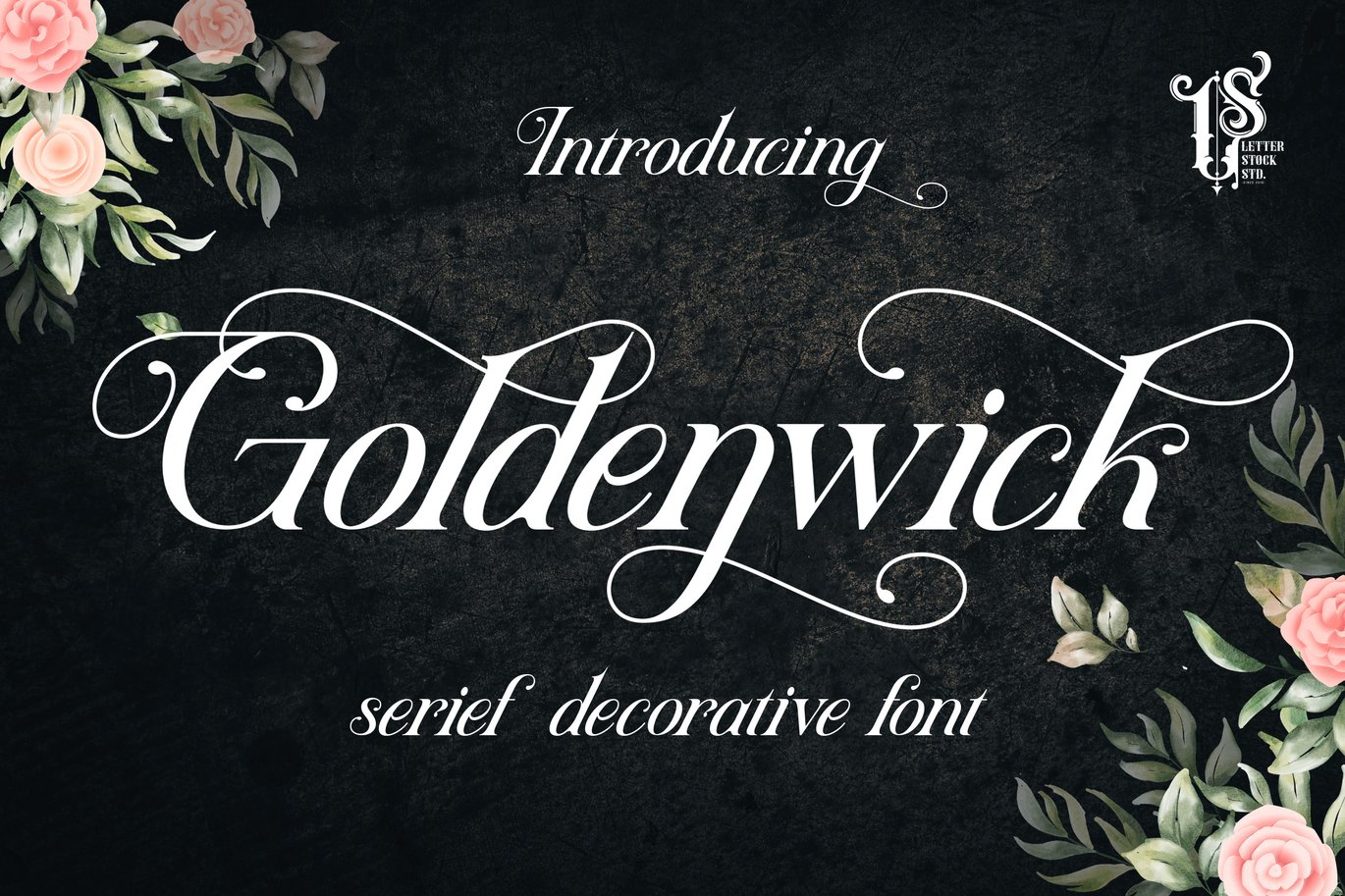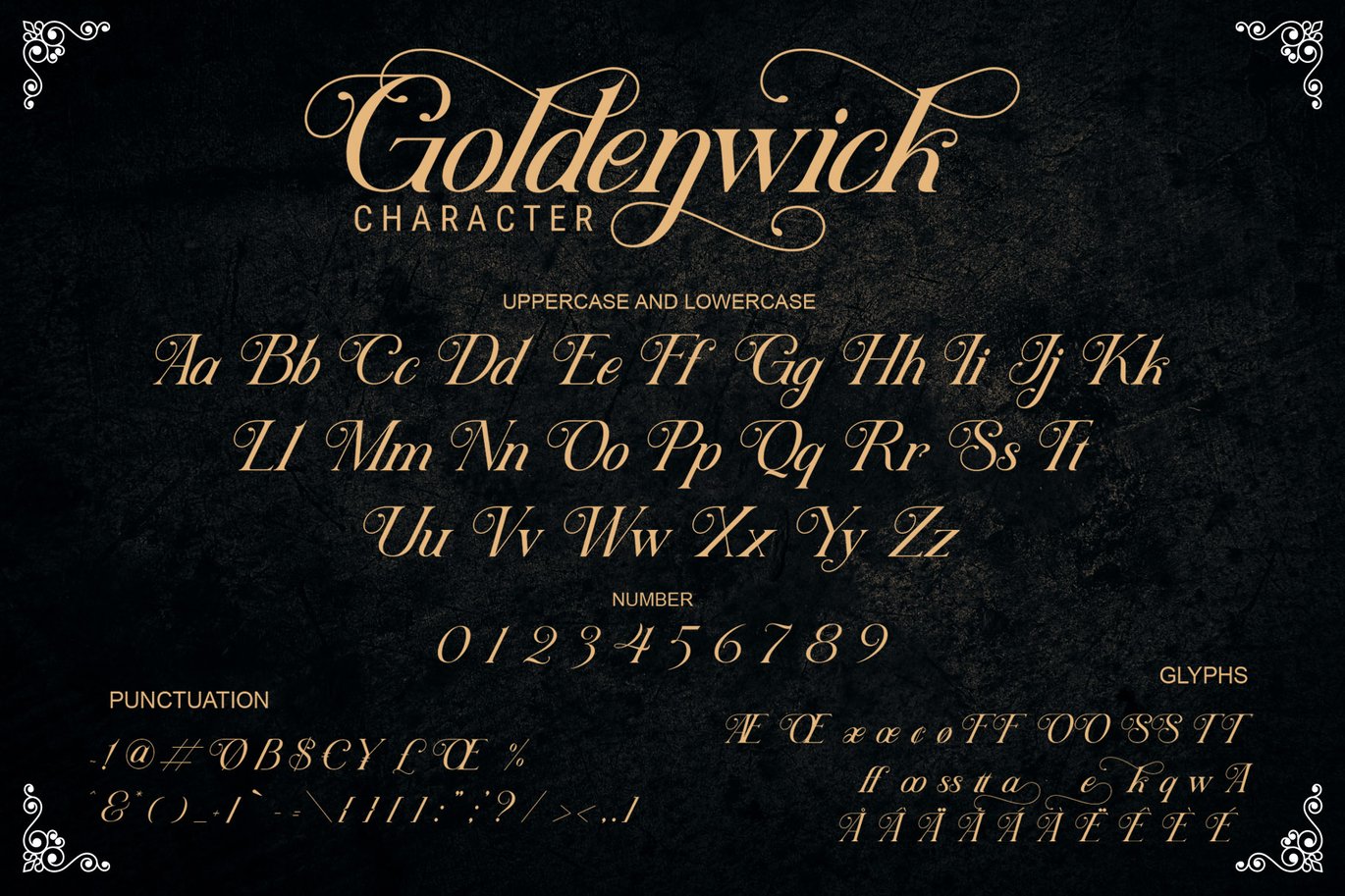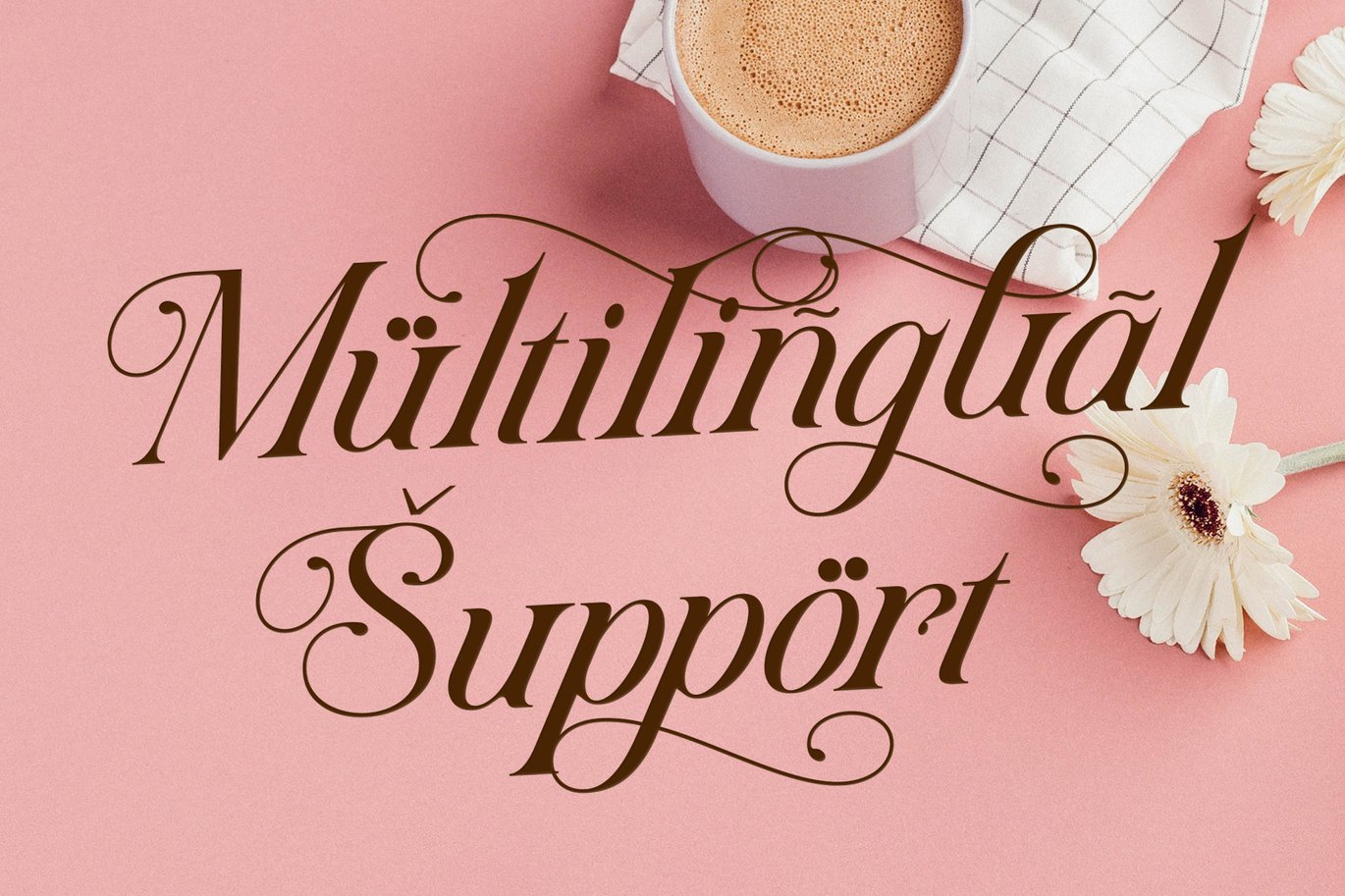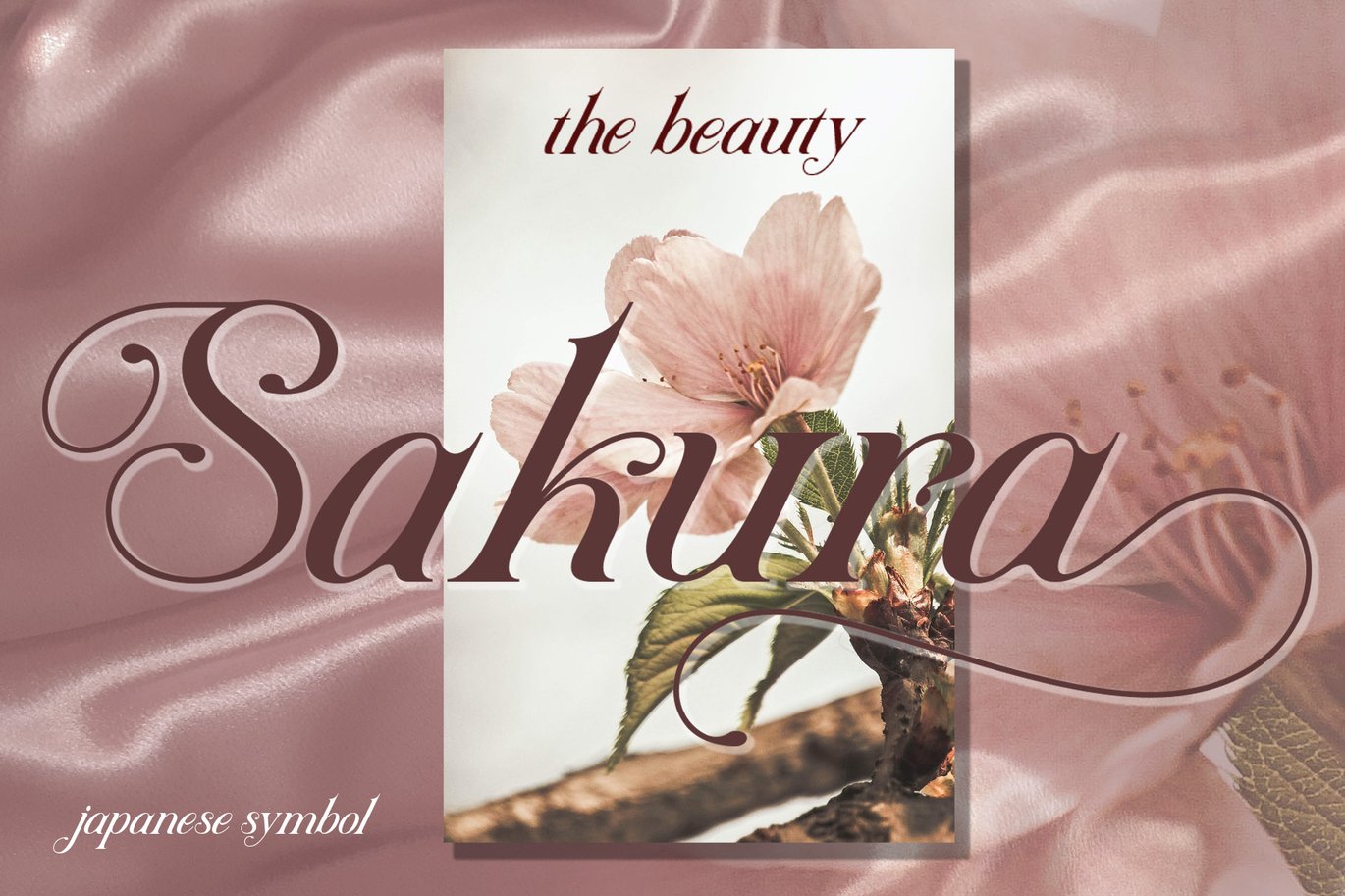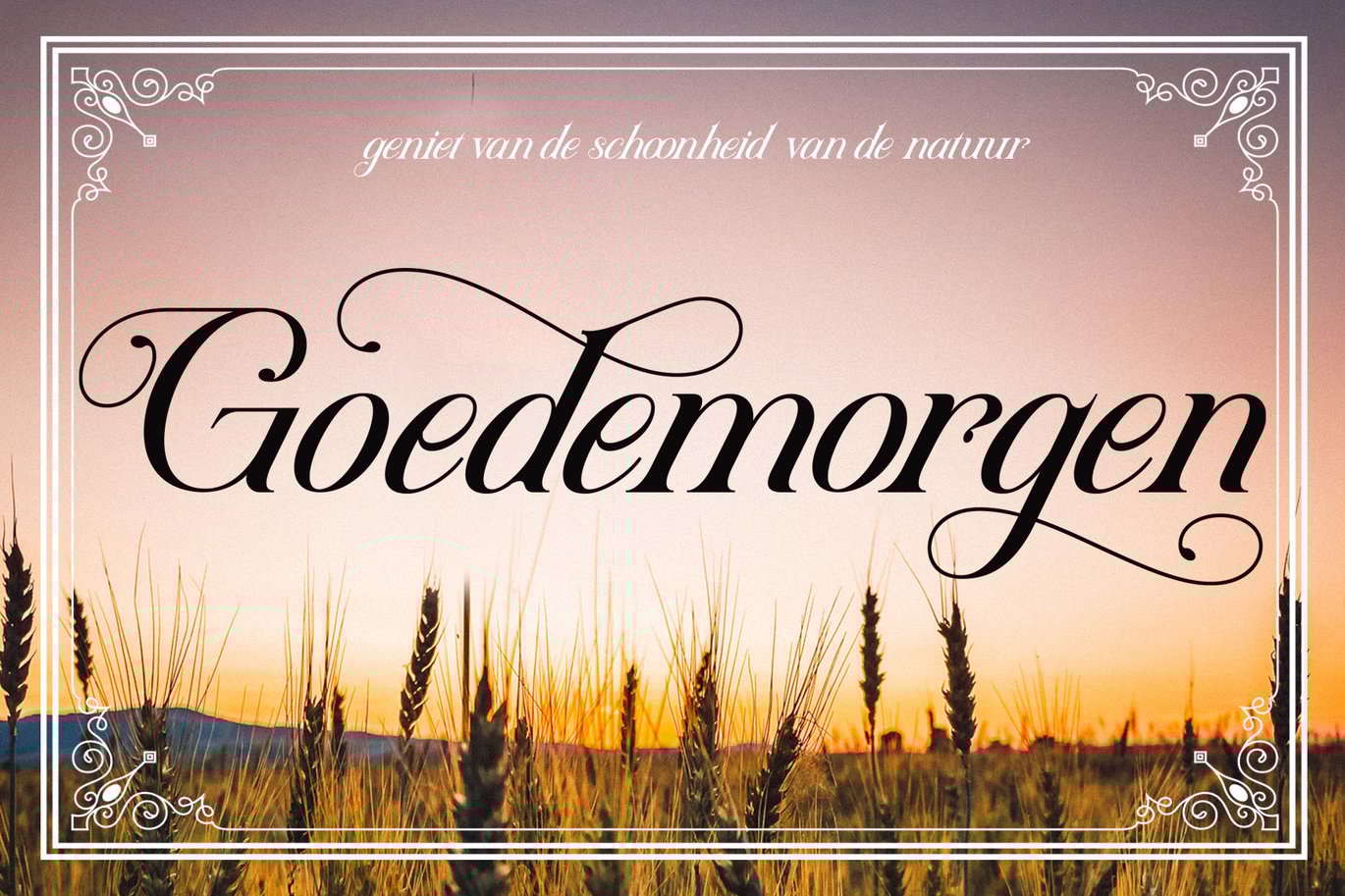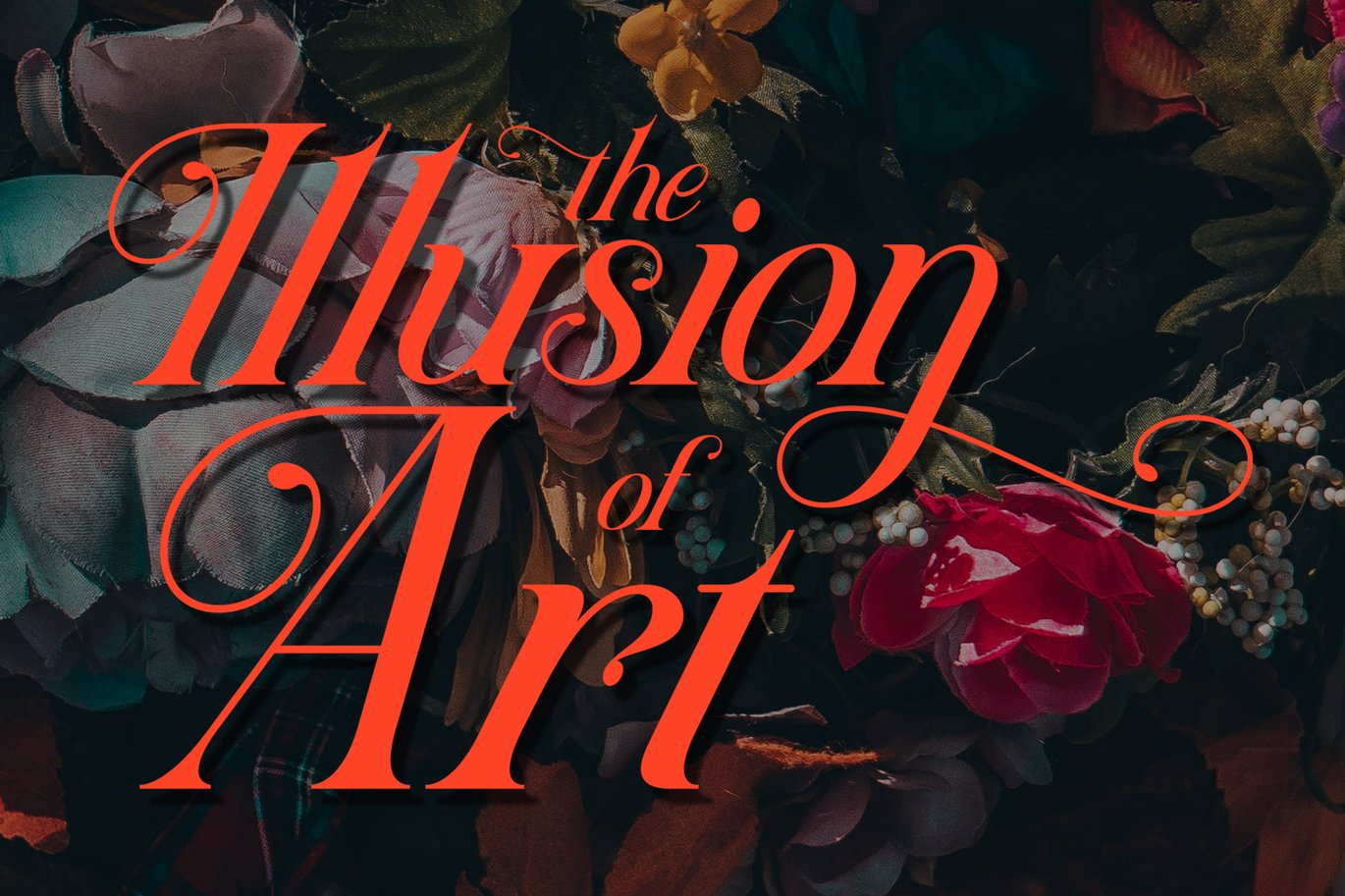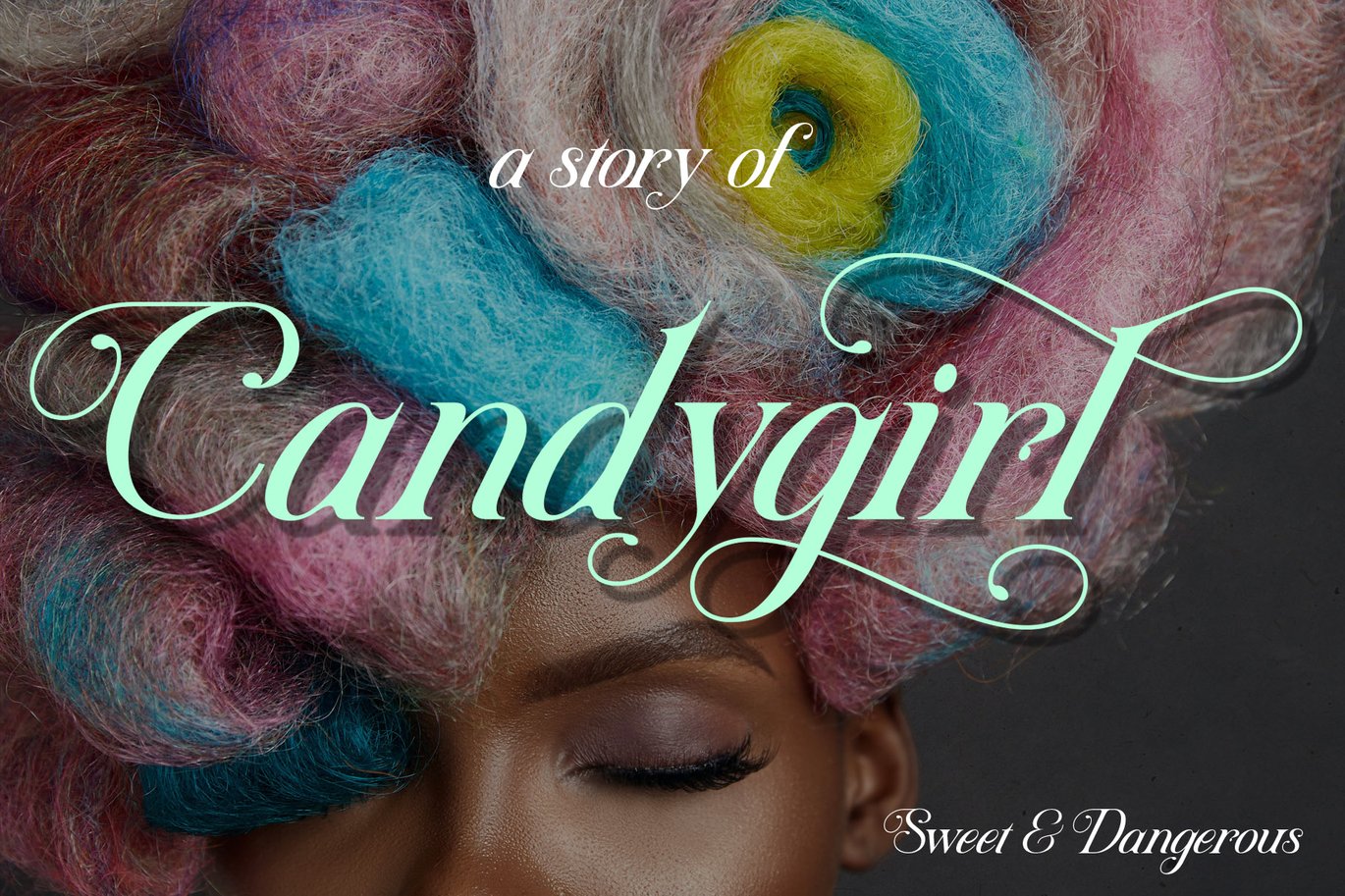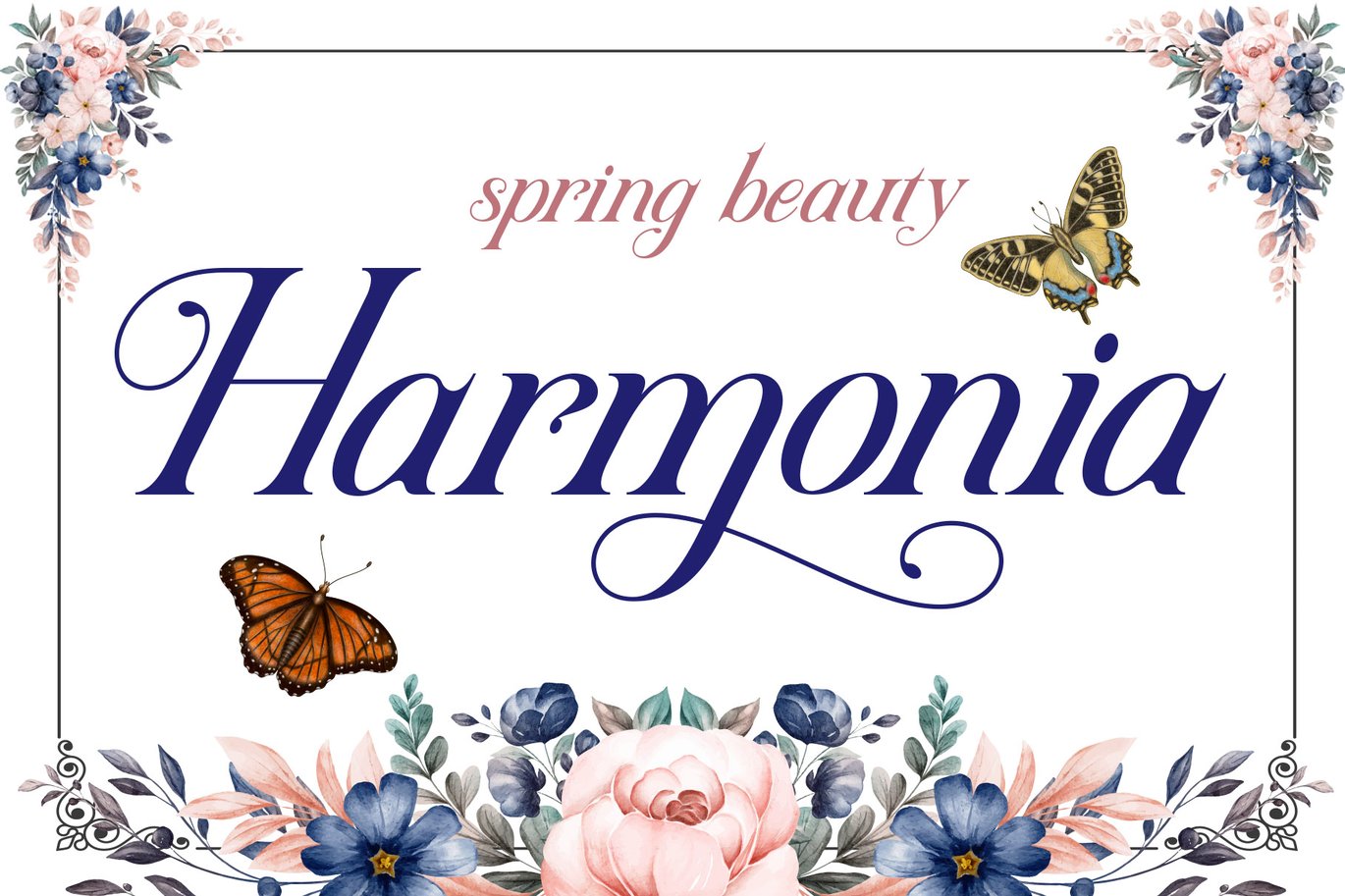
Goldenwick – Serif Decorative Font
Goldenwick
This pair was inspired by greetingcard design that i saw on some coffee shop, It was crafted by hand specially to add natural handmade feeling in its brand identity than i make it clean with pentool.
Goldenwick font has 207 character set included.
Goldenwick font is very good looking in logo, labels, product packaging, invitations, advertising and others because of the calligraphy script uniqueness that Garlicha had.
If you looking a font for your greetingcard or invitation design, this item is a great choice to make your design looks great, authentic and unique.